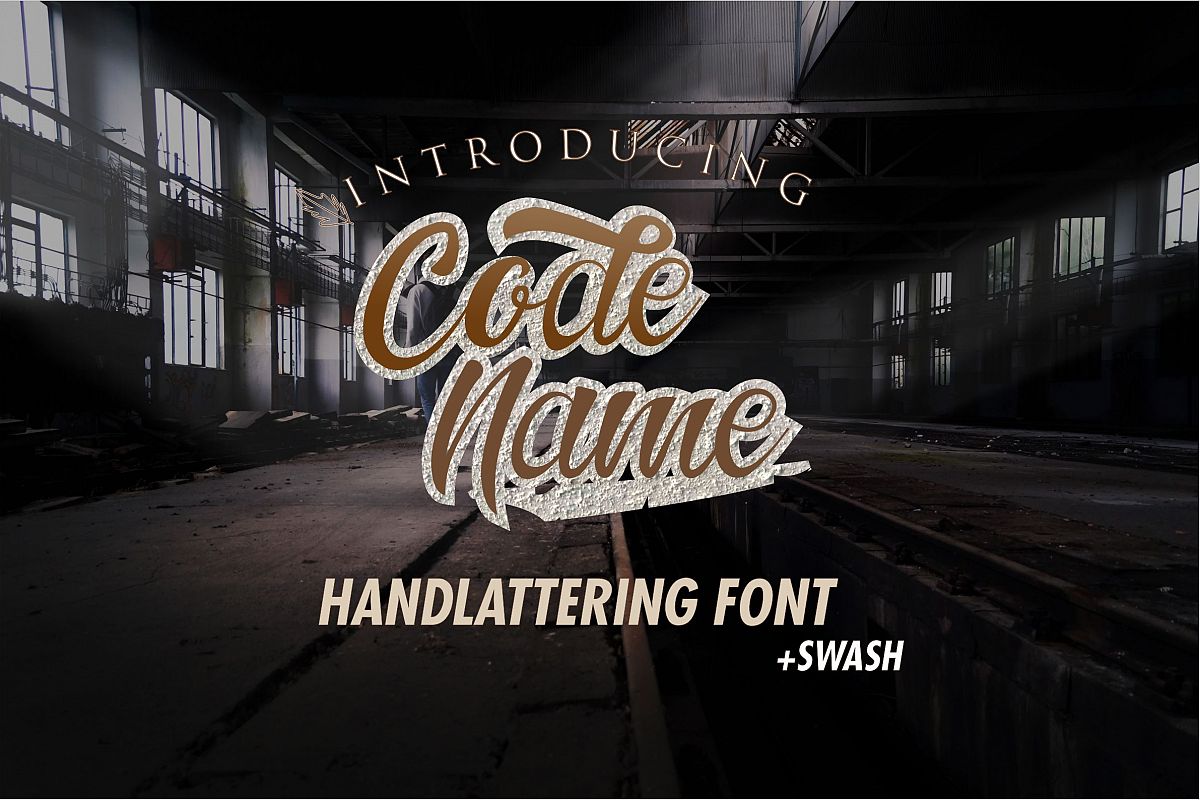
Codename Font
Codename Font is a handpainted typeface with a customible style, it’s perfect for latterhead, vintage apparel design, headline, logotype, poster, card, and etc.File Include